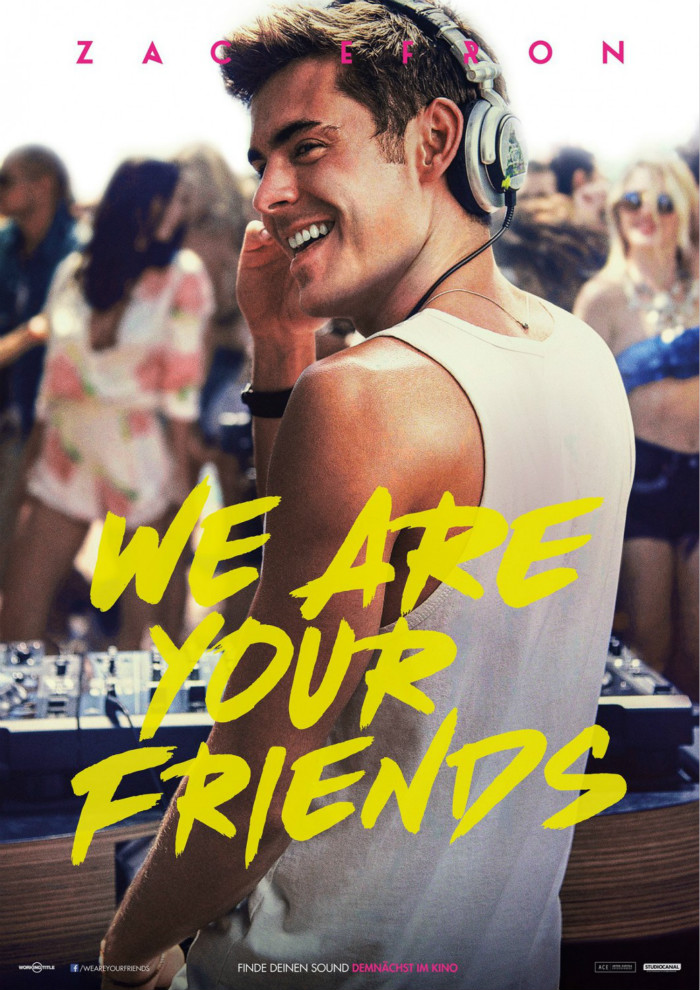
We Are Your Friends Font
DramaWe Are Your Friends is a 2015 American electronic dance music-themed drama film about a young DJ trying to make it big in the music industry while balancing his personal life and relationships. It stars Zac Efron and Emily Ratajkowski.
We Are Your Friends poster showcases a brush script font called Dead Stock by BLKBK Fonts. You can also try out Peanut font, a similar free alternative.